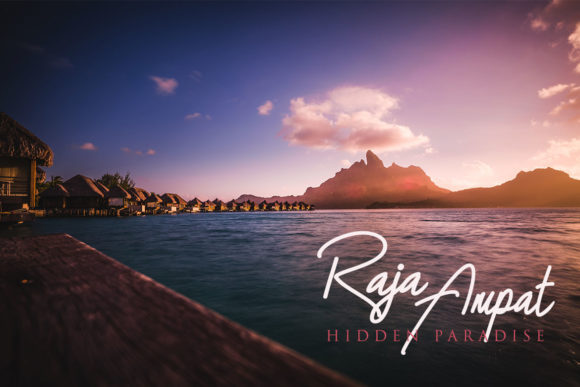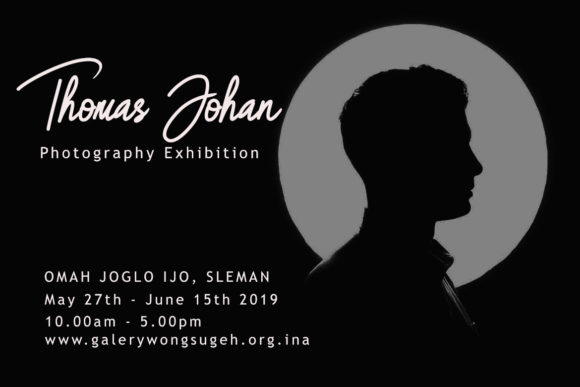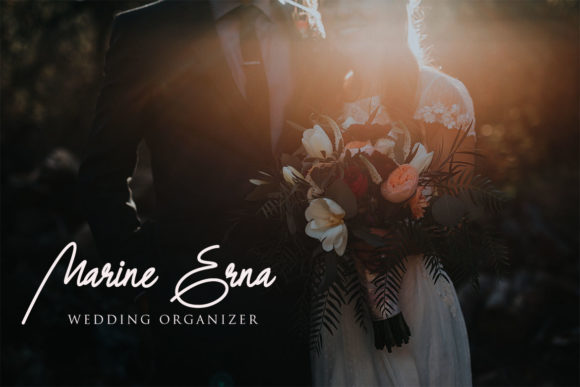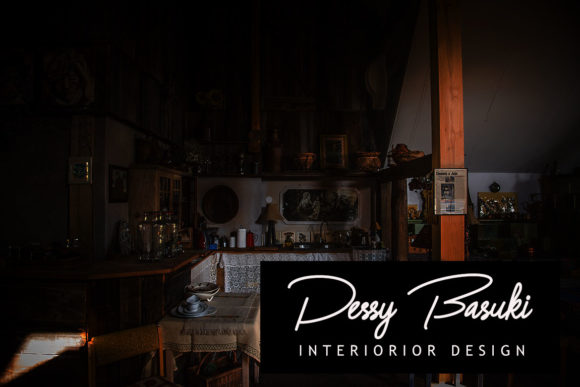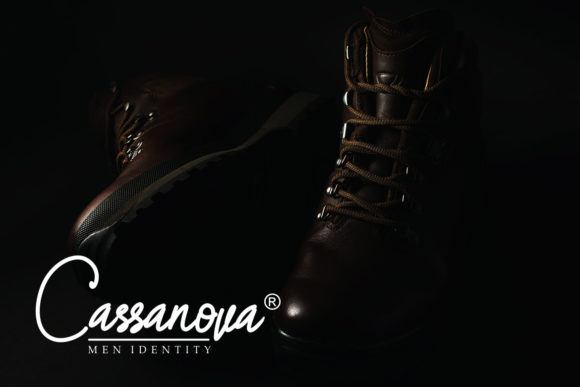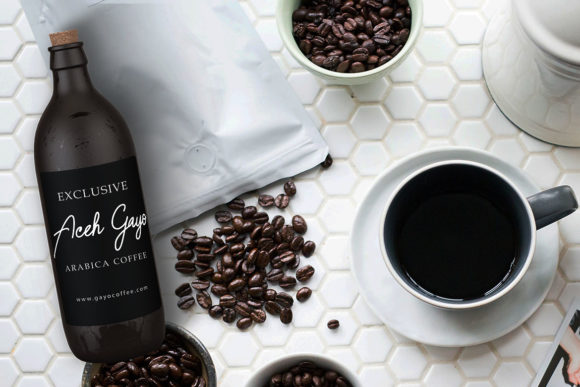
Great Saturday Font
The Great Saturday is a modern script with a classy style.
It’s perfect for photography, signatures, branding, and every other designs which needs a simple, yet strong typeface.